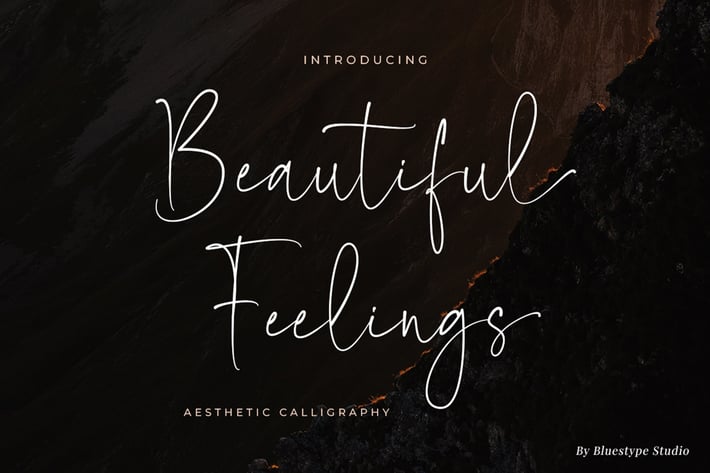
Beautiful Feelings - Aesthetic Font
Introducing Beautiful Feelings
Beautiful Feelings is a charming handwritten font. This script font has beautiful hand-drawn shapes and is exquisitely crafted. guaranteed to add a romantic feel to your next project.